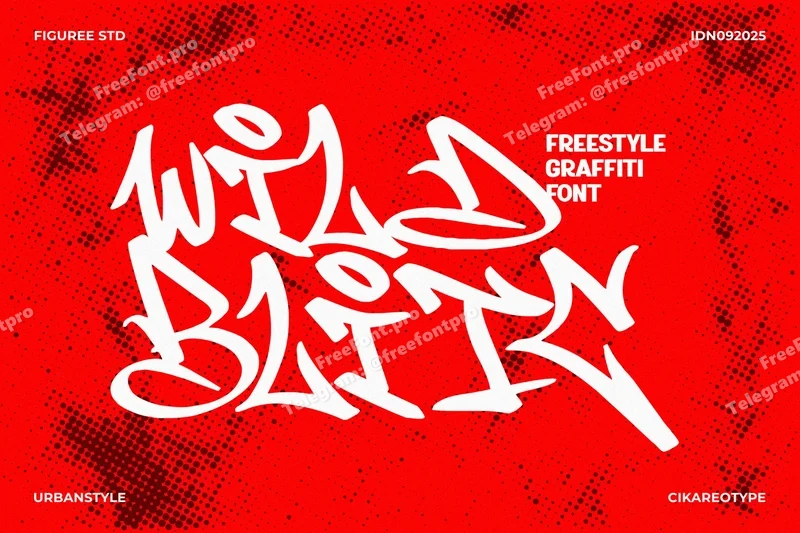
Wild Blitc – Freestyle Graffiti Font
Unleash raw energy in your designs with Wild Blitc – Freestyle Graffiti Font. Inspired by the spontaneous strokes of spray paint, this bold all-caps display typeface delivers the authentic spirit of street expression with a modern digital twist. Perfect for designers who want to add power, edge, and personality to their creative projects, Wild Blitc turns ordinary text into a striking visual statement.
The freestyle character of this graffiti font makes it versatile enough for a wide range of projects. Whether you are creating eye-catching posters, energetic flyers, dynamic album covers, or bold event banners, Wild Blitc provides the visual punch that ensures your words don’t just sit on the page—they leap off it.
With its sharp angles, rough outlines, and urban vibe, Wild Blitc sets the tone for designs that demand attention. It blends the energy of street culture with clean execution, giving your work a rebellious yet professional edge.
Key Features
All Caps style for bold, uniform headlines.
Support Multilingual to reach global audiences.
Freestyle Graffiti Look with authentic spray-paint energy.
High Versatility – works for posters, banners, flyers, album covers, branding.
Attention-Grabbing Design – bold strokes with clear legibility.
Why Designers Love It Designers choose Wild Blitc because it transforms ordinary layouts into unforgettable experiences. Its all-caps construction ensures strength and uniformity, while the freestyle graffiti shapes add personality and movement. The multilingual support also makes it practical for global campaigns, from music promotions to international event posters.
Another reason creatives love Wild Blitc is its adaptability. It can be styled with textures, neon effects, or color gradients to amplify the graffiti vibe, or used as a flat monochrome type for a sharper, more minimalist look. Either way, it always delivers a powerful presence that makes words feel alive.